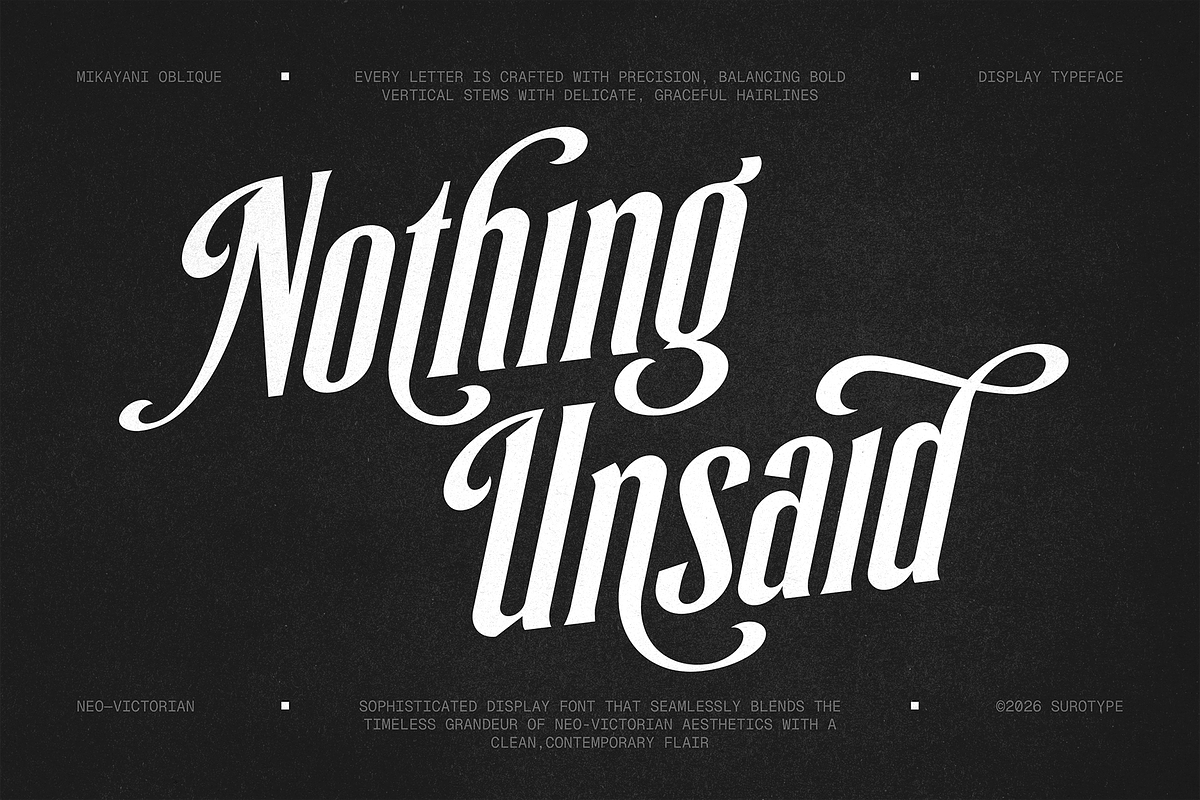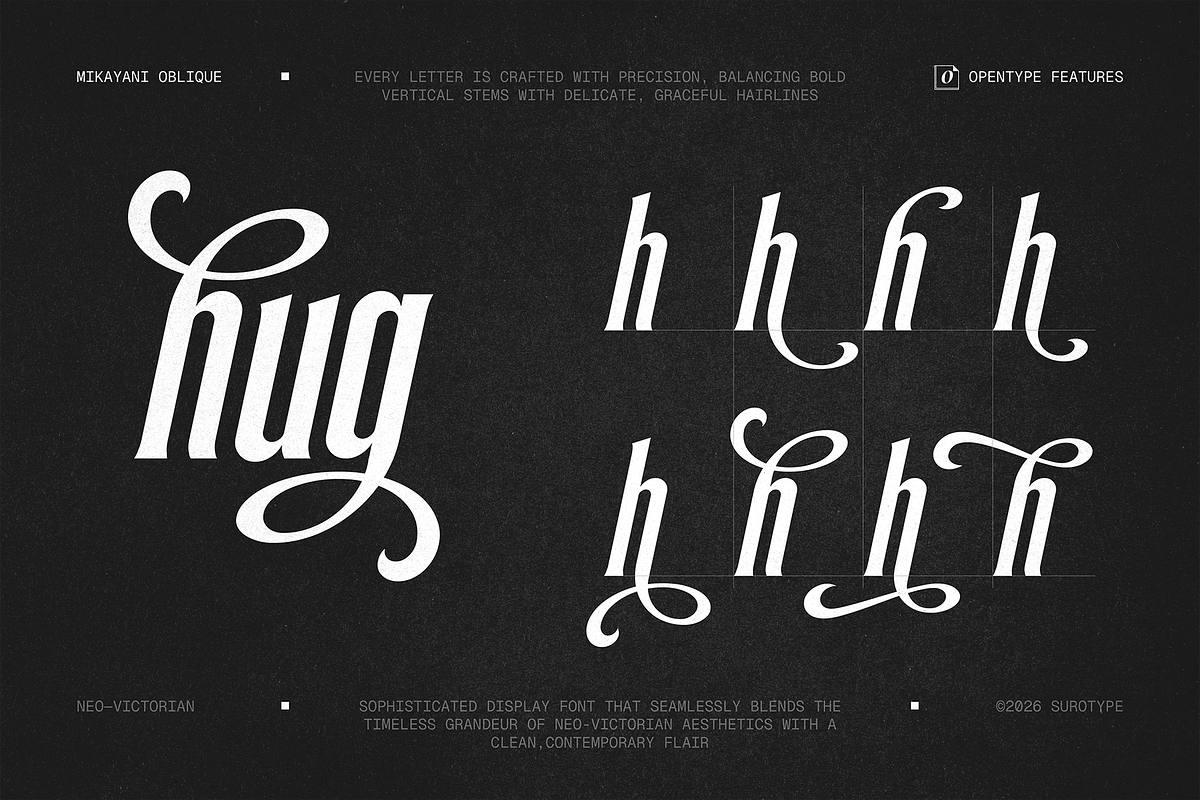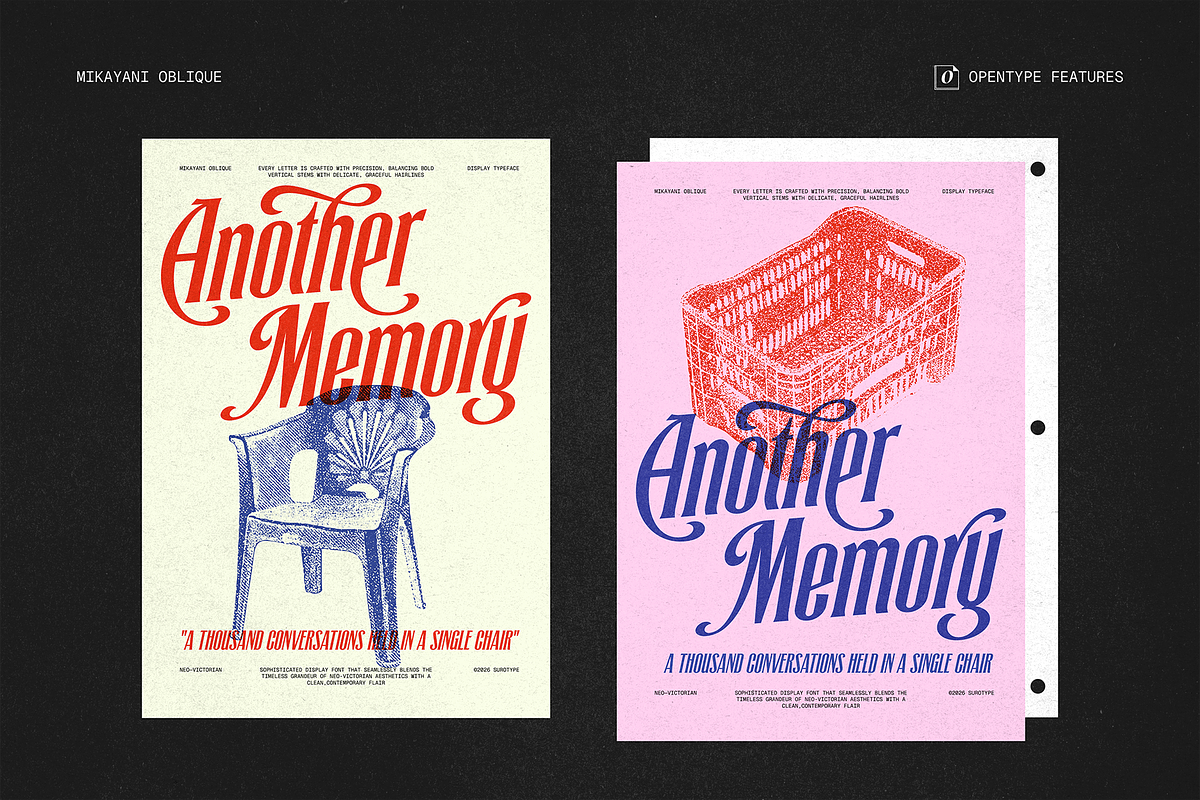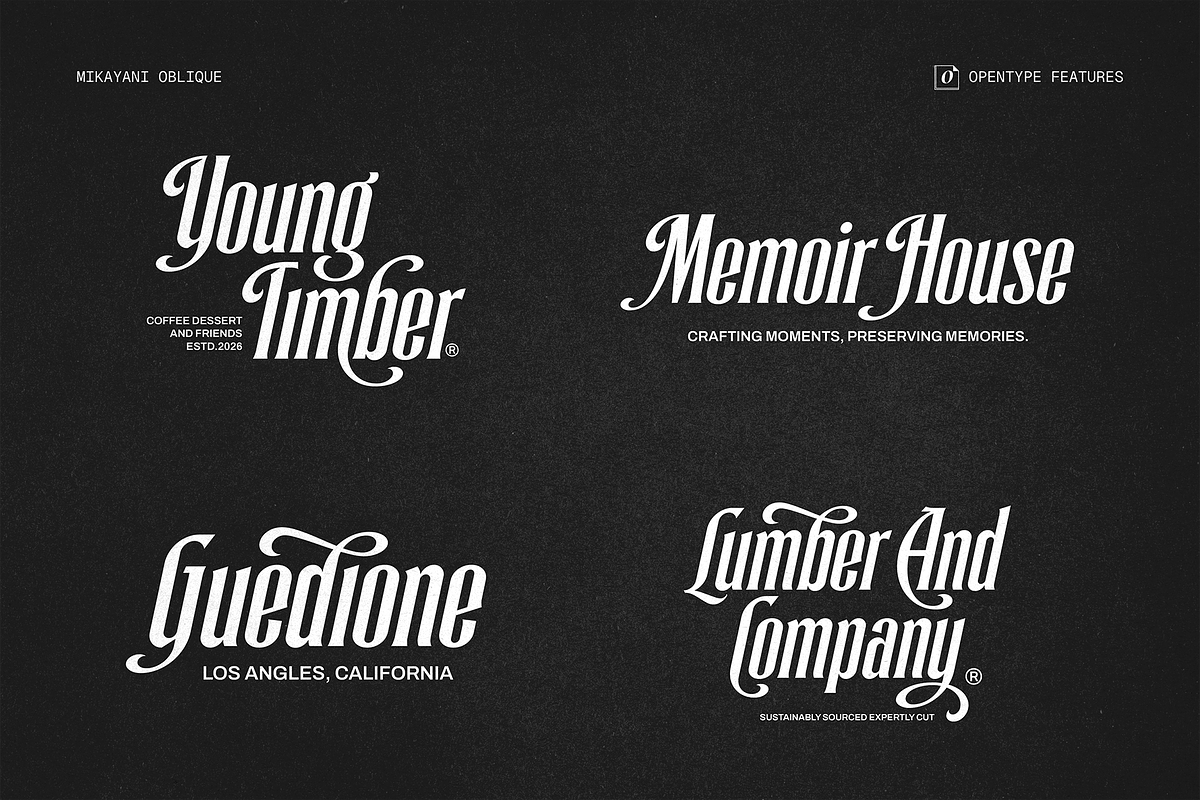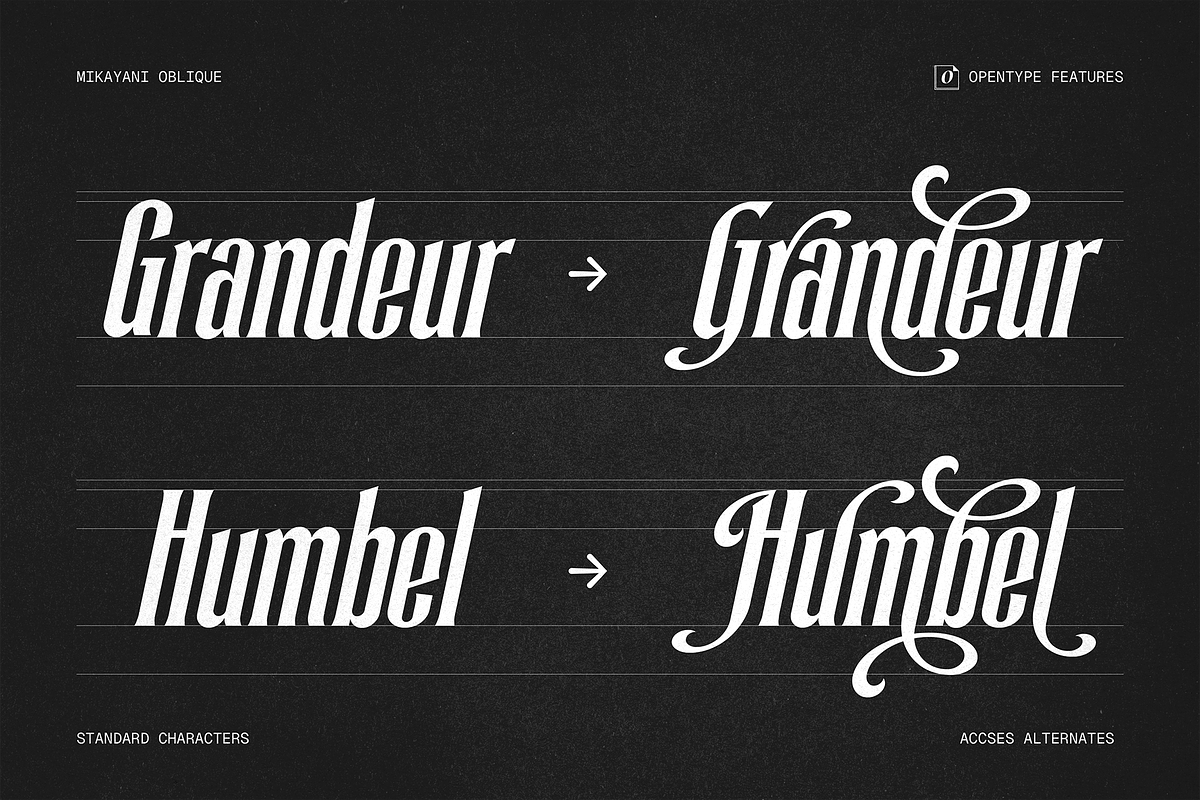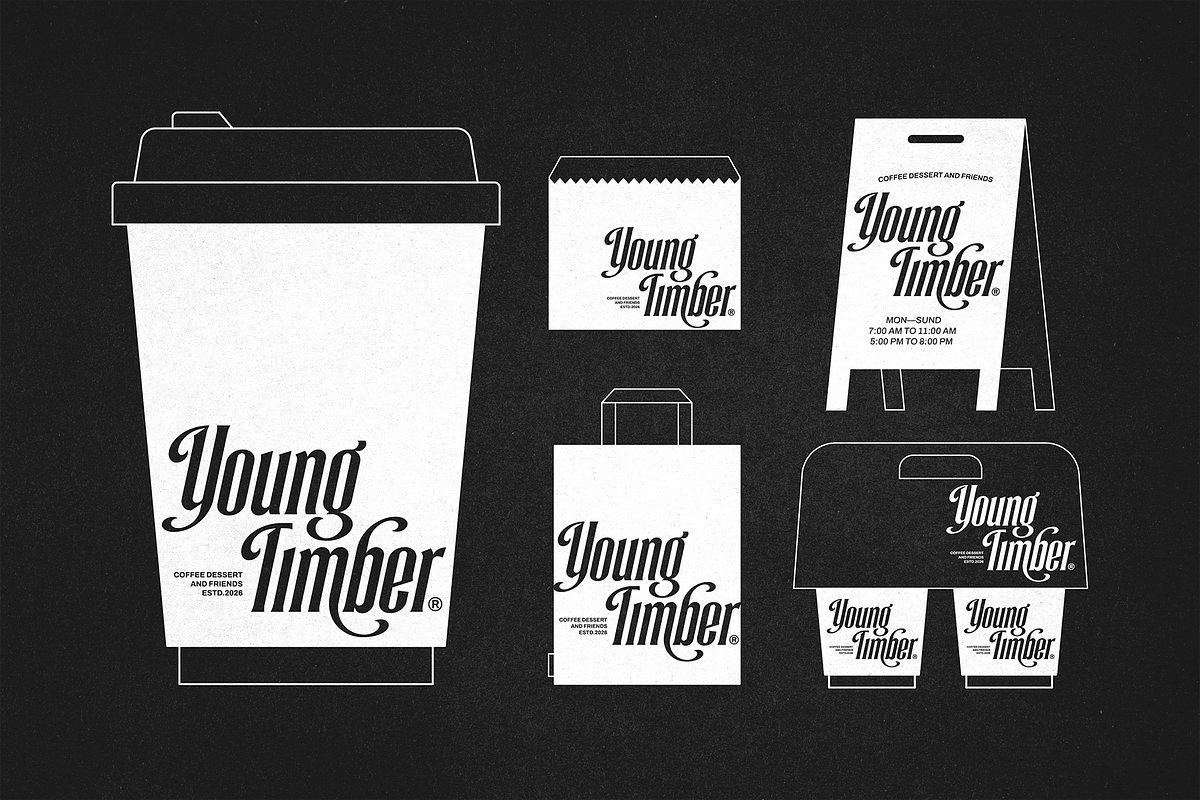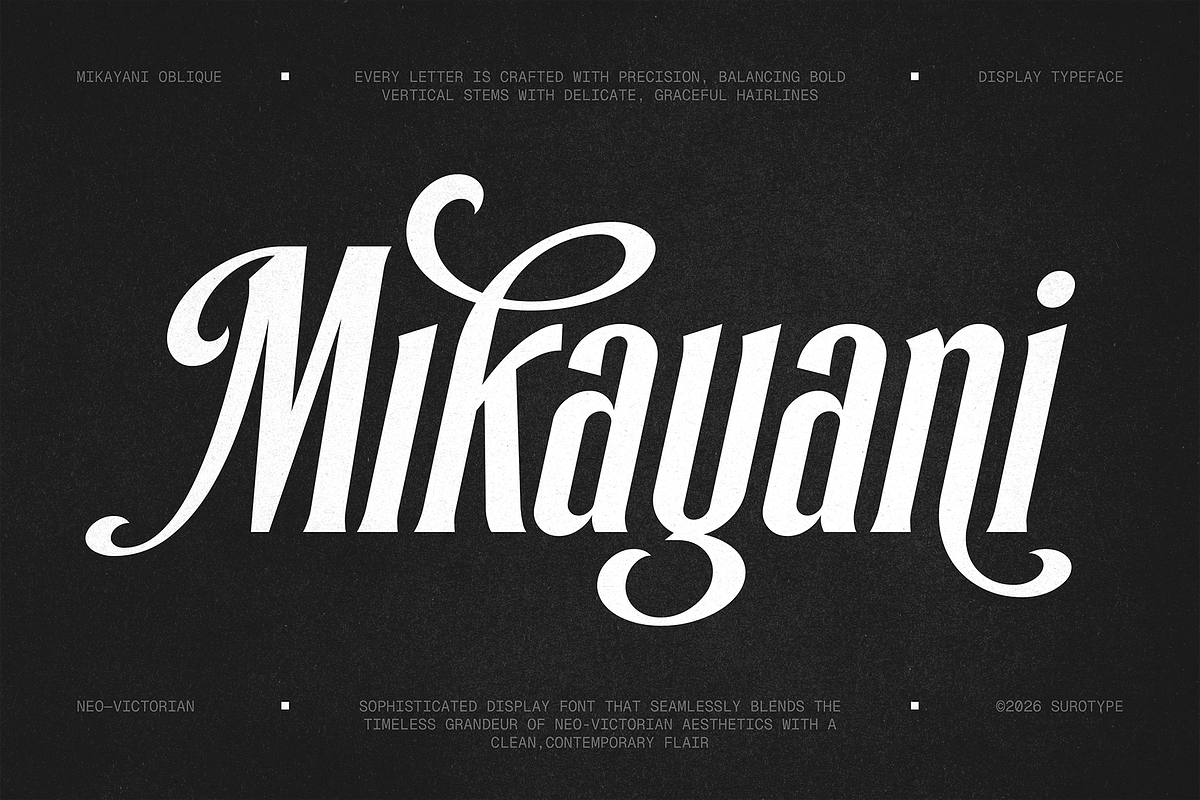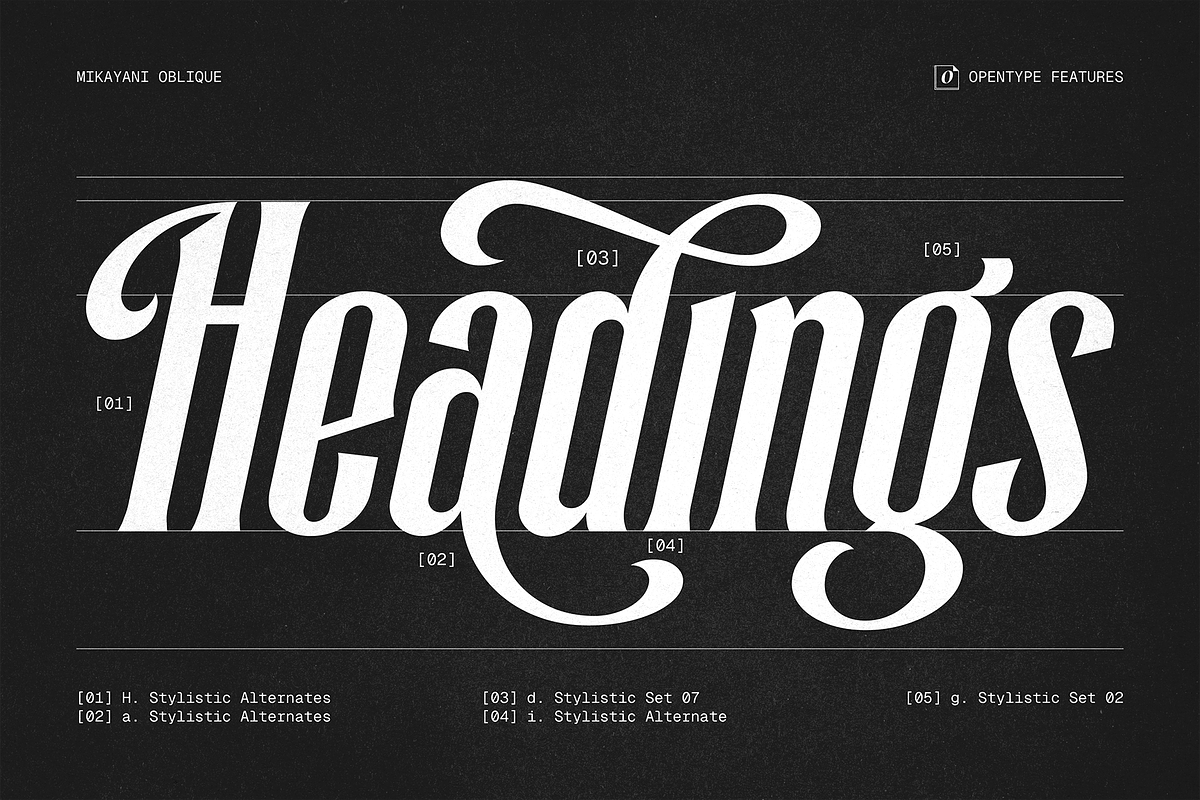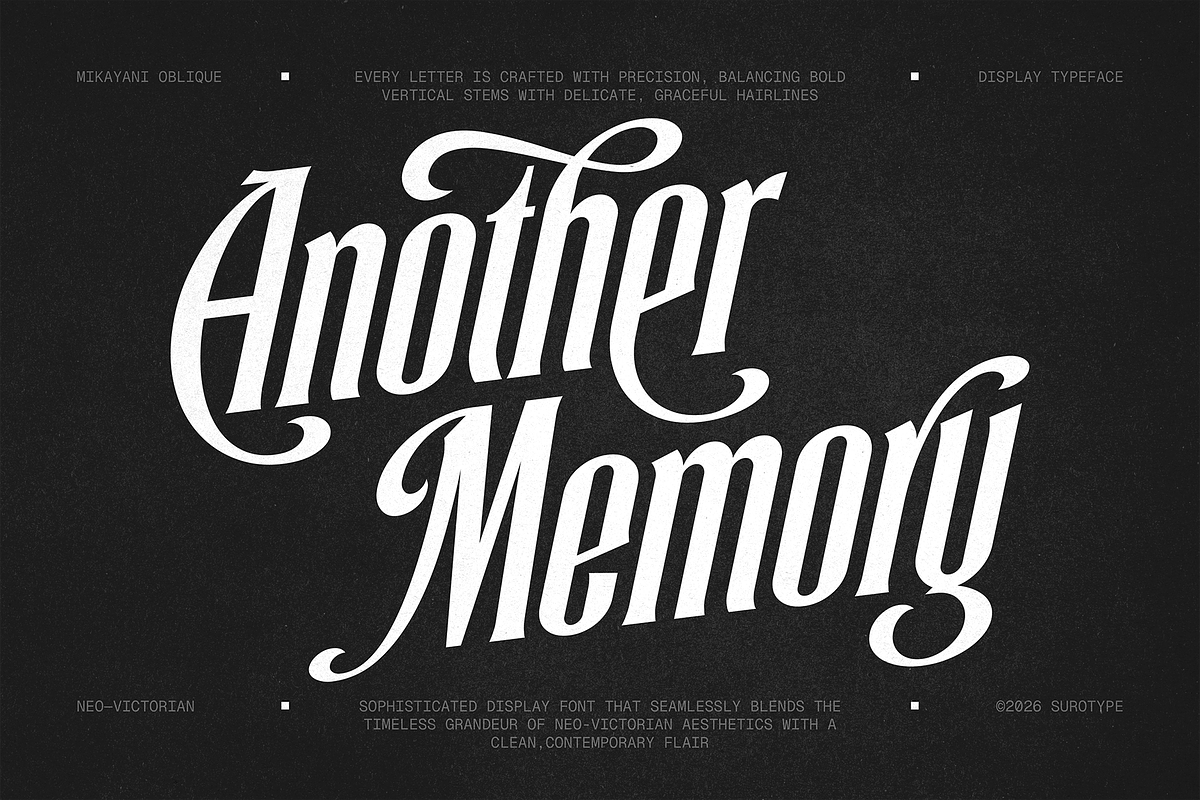
Miakayani Oblique
Mikayani is a sophisticated display font that seamlessly blends the timeless grandeur of Neo-Victorian aesthetics with a clean, contemporary flair. Defined by its striking high contrast, razor-sharp serifs, and fluid decorative swashes, this font is designed to command attention while maintaining an air of high-end elegance.
Every letter is crafted with precision, balancing bold vertical stems with delicate, graceful hairlines. To give you ultimate creative freedom, Mikayani comes packed with a rich set of stylistic alternates and decorative flourishes, allowing you to create custom-looking layouts with just a few clicks.
High-Contrast Design: Perfect for luxury branding, editorial headlines, and fashion logos.
Extensive Alternates: Includes a variety of stylistic sets, swashes, and unique ligatures to customize your typography.
Victorian Soul, Modern Heart: A hybrid style that fits both vintage-themed projects and minimalist modern designs.
Multilingual Support: Ready for global reach.